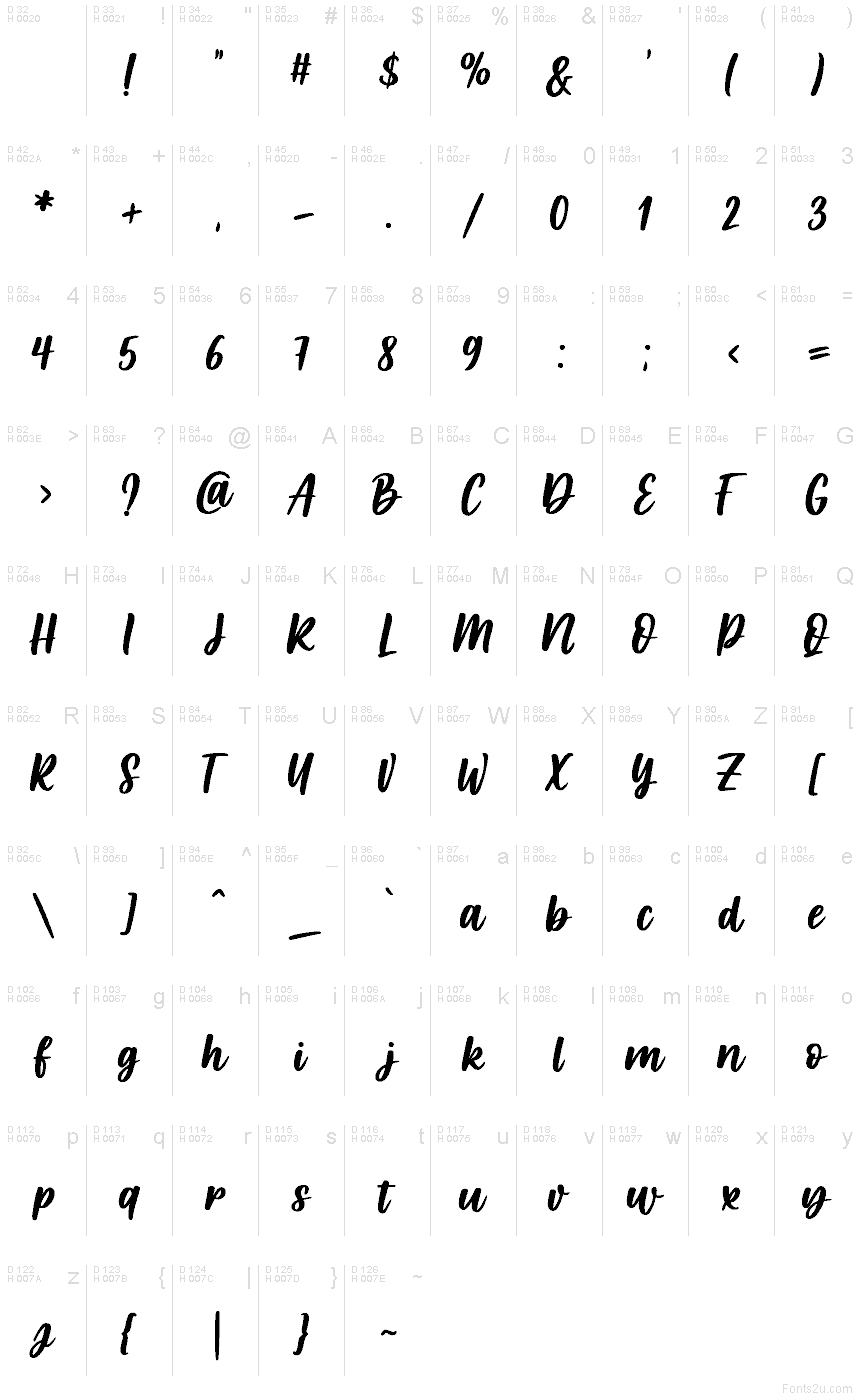
Patchouli
Patchouli font by Cat.B is a free brush script typeface that solves a familiar headache: getting bold, hand-painted character without losing clarity. Its inky, velvety strokes connect smoothly, with rounded forms and a steady rhythm that stays readable even when scaled down. The texture feels wet-on-paper, but the spacing is disciplined, so headlines hit hard and subheads don’t blur.
Using Patchouli, you can craft logos, product packaging, café menus, social graphics, poster titles, stickers, and greeting cards with confident warmth. This free font shines on bold, short phrases where the brush energy can breathe. For balance, pair it with a clean geometric sans in small text, and give Patchouli a touch of extra tracking when used in all caps.